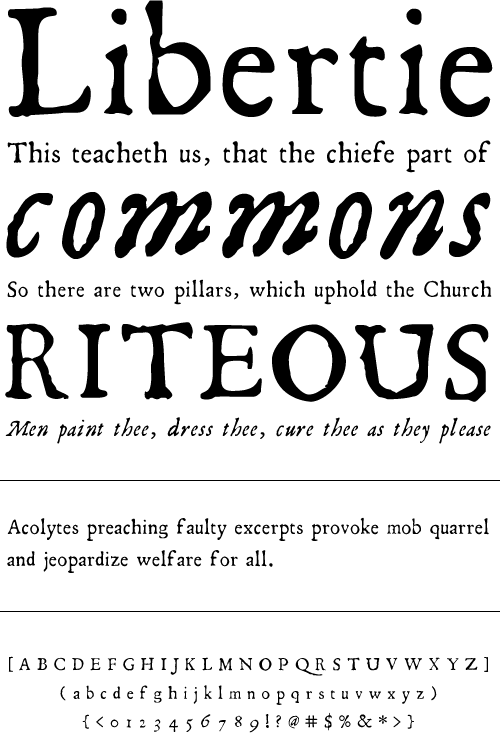
Dunelm
A family friend who was an avid book collector introduced me to a beautiful book from the mid 1600's. The text typeface was unique and I wanted to create a font that would emulate the printing feel of the 17th century. I did my best to keep the original ink blotting in the letters to keep the authentic feel.
Year Designed:
1996
Weights:
Regular, Italic